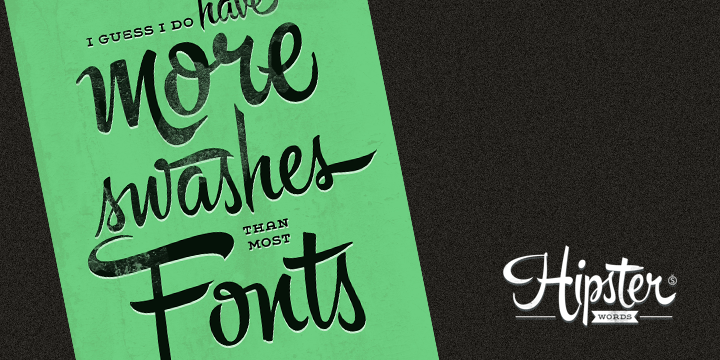
Hipster Script Pro Font is perfect for logo design, branding projects, wedding invitations, greeting cards, social media graphics, poster designs, packaging labels, book covers, magazine headlines, and artisanal product branding. This versatile script font adds a handcrafted, authentic feel to any creative project.
What makes Hipster Script Pro Font so exciting is its perfect balance between vintage charm and modern sophistication. The carefully crafted letterforms feature natural brush strokes and organic curves that create an authentic handwritten appearance. Each character flows seamlessly into the next, creating beautiful ligatures and connections that make your text look genuinely hand-lettered. The font's unique personality shines through its slightly imperfect edges and varying stroke weights, giving it that coveted artisanal quality that resonates with contemporary design trends.
The Hipster Script Pro Font family includes multiple weights and styles: Regular, Bold, Light, and Italic variations. Additionally, it comes with an extensive character set featuring uppercase and lowercase letters, numerals, punctuation marks, special characters, and international language support. The font also includes stylistic alternates, swashes, and decorative elements that allow designers to create truly unique compositions.
Whether you're working on vintage-inspired branding, modern calligraphy projects, or trendy social media content, Hipster Script Pro Font Free Download offers the perfect solution for designers seeking authentic script typography. Its versatility makes it suitable for both digital and print applications, from website headers to business cards, ensuring your designs maintain their elegant appeal across all mediums. The font's readability at various sizes makes it practical for both display and text use, while its distinctive character ensures your projects stand out in today's competitive design landscape.